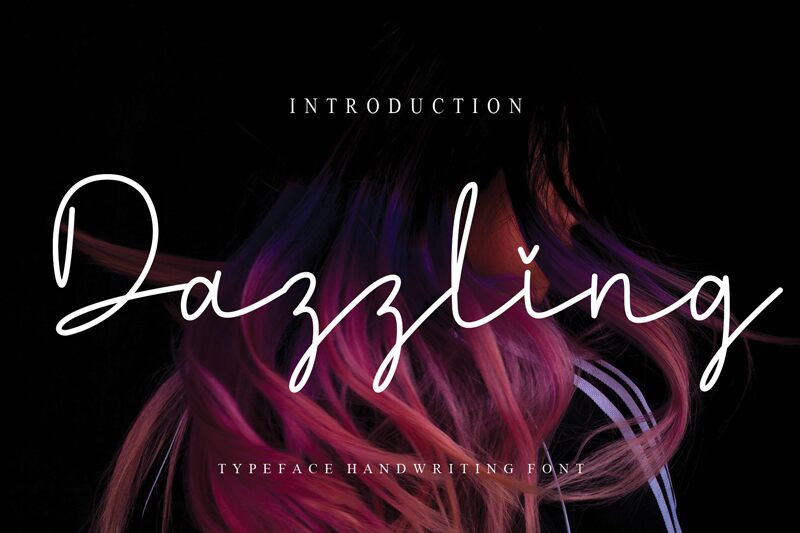
Dazzling
Dazzling, a captivating handwritten font crafted by the talented Scratchones, exudes a sense of effortless elegance and spontaneity. With its light, flowing strokes and natural variations, this font emanates a genuine, heartfelt aesthetic that immediately draws the viewer in. The Dazzling typeface seamlessly blends the charm of a handwritten script with a refined, polished appearance, making it a versatile choice for a wide range of design applications.
The Dazzling font's unique characteristics lend themselves beautifully to projects that require a touch of personal expression and artistic flair. From elegant stationery and wedding invitations to modern branding and editorial designs, this font's adaptability allows it to elevate any project with its distinctive personality. Whether you're seeking to infuse your designs with a sense of warmth and authenticity or need a font that effortlessly captures the essence of handcrafted artistry, Dazzling by Scratchones is a true gem in the world of typography.